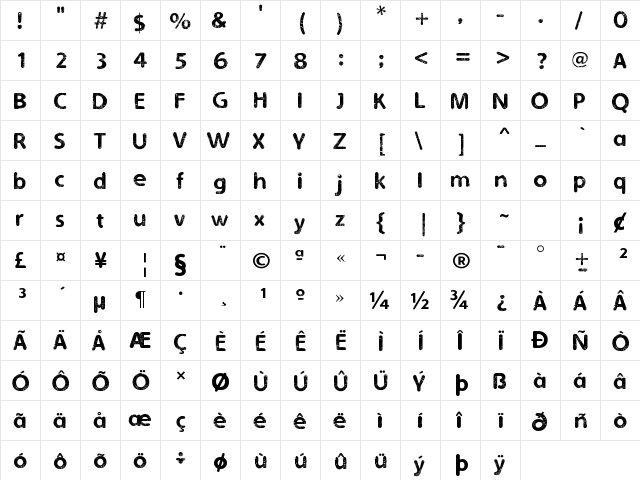
Eroded 2 Much Regular
Design Context for Eroded 2 Much Typeface
Eroded 2 Much trades polish for personality, using distressed and eroded forms to bring grit and attitude to creative work.
Suited to punk-influenced zines, underground music branding, streetwear, and raw, anti-corporate design.
Pro Tip: Pair Eroded 2 Much with intentionally raw or lo-fi design elements. Fighting against it with overly polished surroundings will undermine its personality.